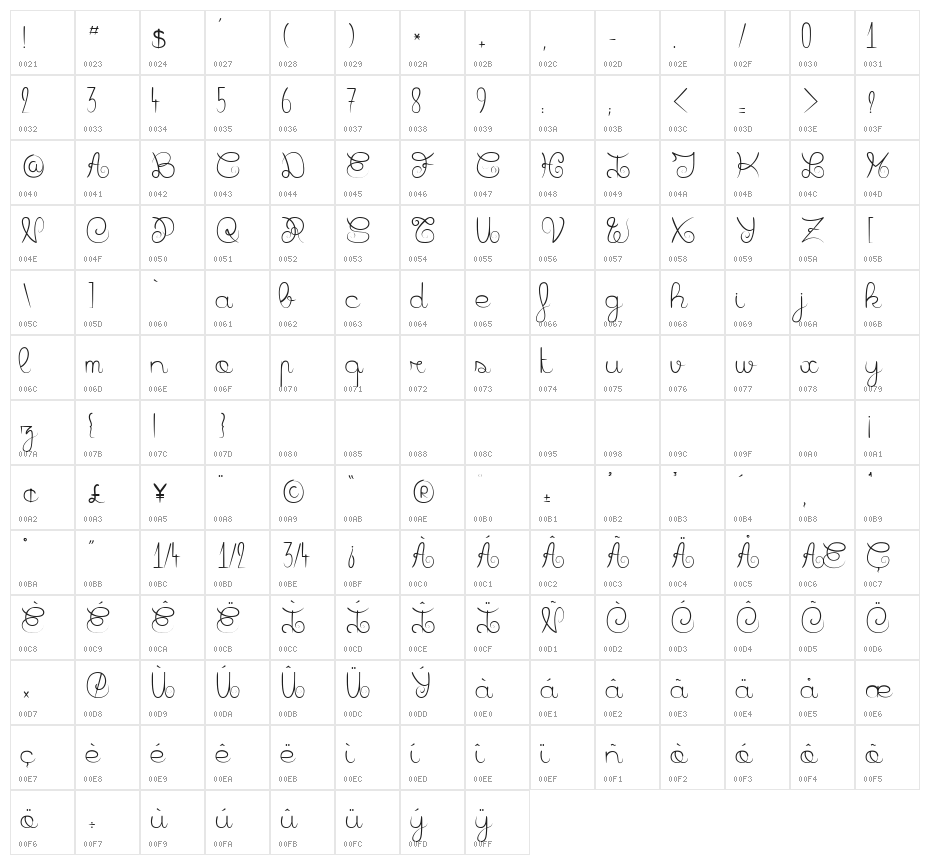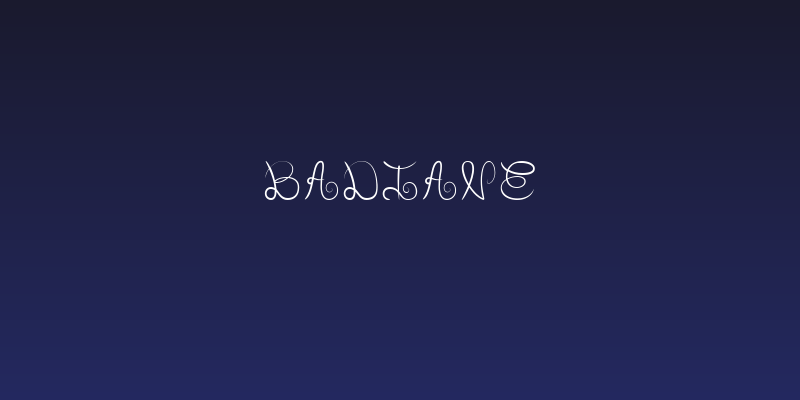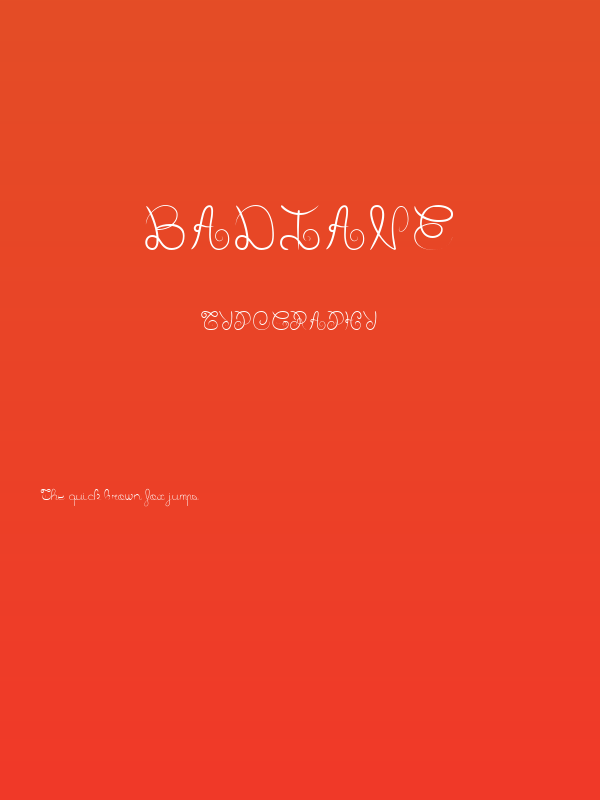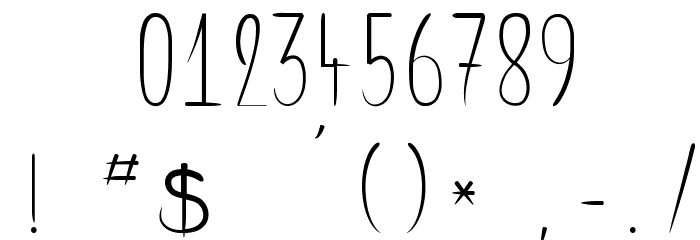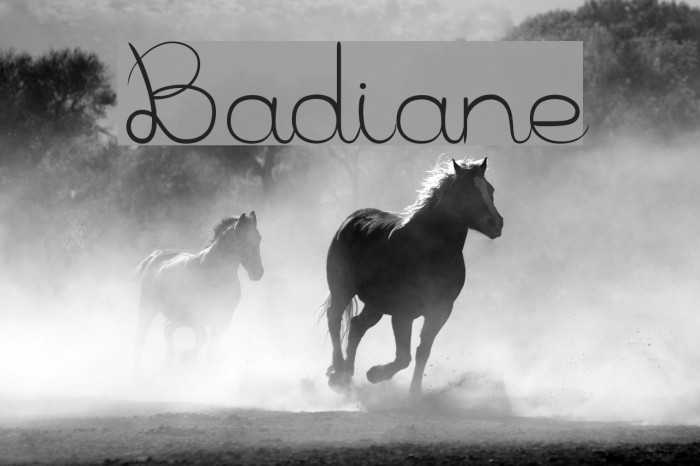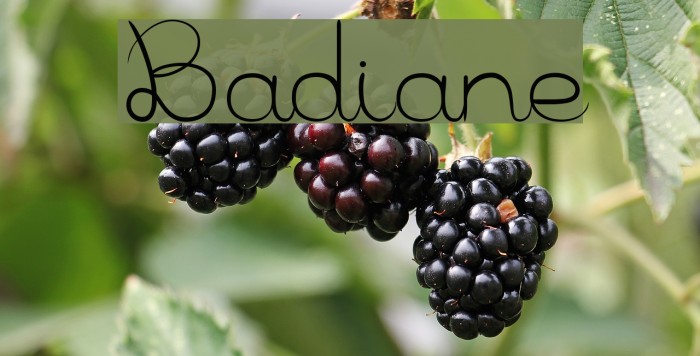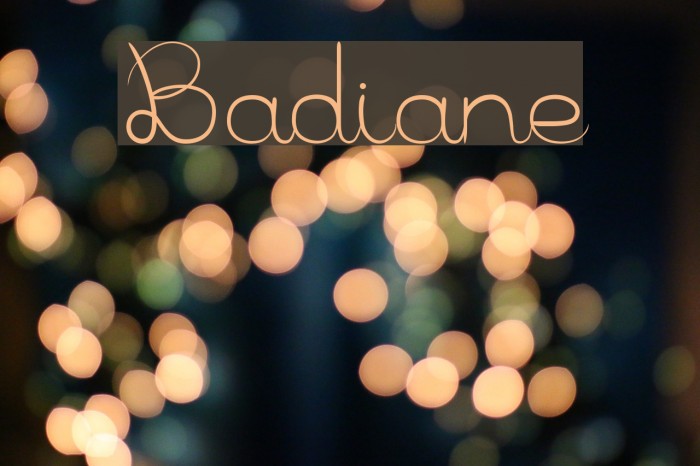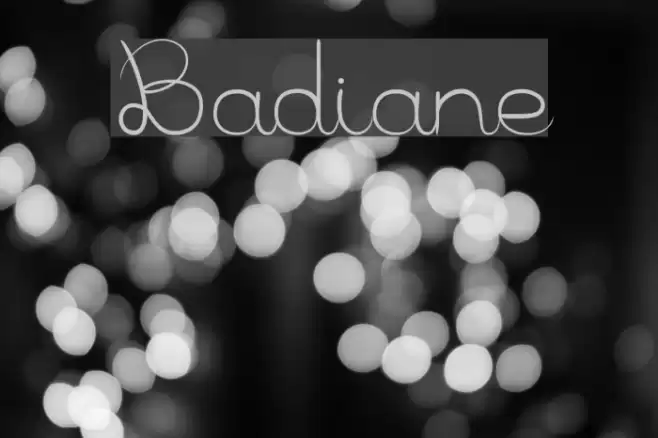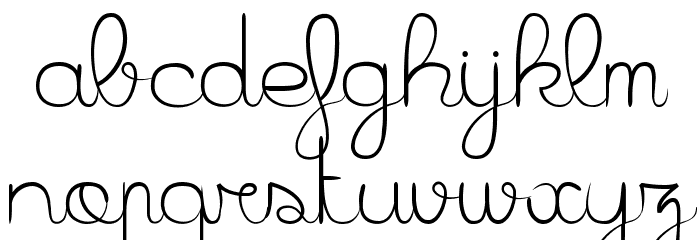
Badiane Font
Badiane Description
This font features an elegant and whimsical design, characterized by its intricate swirls and loops that give it a playful yet sophisticated appearance. The uppercase letters are particularly ornate, with each character exhibiting unique flourishes that add a touch of fantasy. The lowercase letters maintain a consistent style, with smooth curves and a flowing script-like quality. Numbers and special characters are designed to match the overall aesthetic, ensuring a cohesive look across all text. This font's delicate lines and artistic flair make it suitable for creative and decorative applications.
| Proposed Projects | Ideal for wedding invitations, greeting cards, branding for luxury products, and artistic posters. |